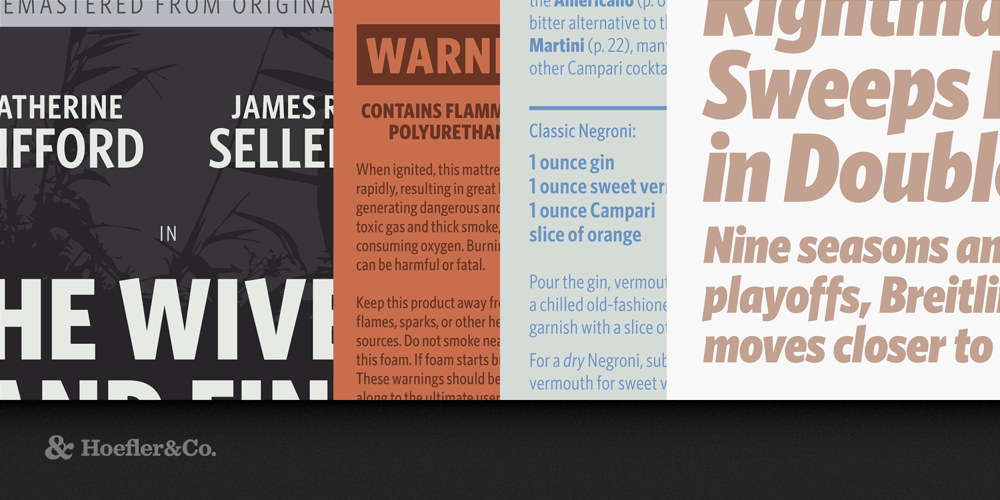
Whitney Font Family was designed by Tobias Frere-Jones, Hoefler&Co and published by Hoefler & Co.. Whitney contains 52 styles and family package options. A type family originally developed for New York’s Whitney Museum, Whitney contends with two different sets of demands: those of editorial typography, and those of public signage. The Whitney typeface was designed by Tobias Frere-Jones in 1996, and redeveloped in collaboration with Jonathan Hoefler beginning in 2000. A commission from the Whitney Museum of American Art, Whitney is a sans serif in the ‘humanist’ style, with letterforms shaped by kinesthesia rather than pure geometry. Designed to satisfy the opposing requirements of museum publications (for spatial economy) and facility signage (for clarity at a distance), Whitney uses compact, energetic, and open letterforms to remain engaging and legible at any size. The nine degree angle, a recurring motif in the typeface, echoes the design of the Whitney Museum’s original home at 945 Madison Avenue, designed in 1966 by Marcel Breuer. From the desk of the designer: Typefaces for catalogs and brochures need to be narrow enough to work in crowded environments, yet energetic enough to encourage extended reading. But typefaces designed for wayfinding programs need to be open enough to be legible at a distance, and sturdy enough to withstand a variety of fabrication techniques: fonts destined for signage need to anticipate being cast in bronze, etched in glass, cut in vinyl, and rendered in pixels. While American “gothics” such as News Gothic (1908) have long been a mainstay of editorial settings, and European “humanists” such as Frutiger (1975) have excelled in signage applications, Whitney bridges this divide in a single design. Its compact forms and broad x-height use space efficiently, and its ample counters and open shapes make it clear under any circumstances. And Whitney’s extensive language support, covering more than 200 languages worldwide, has made it a mainstay of diversified brands that require localized typography.